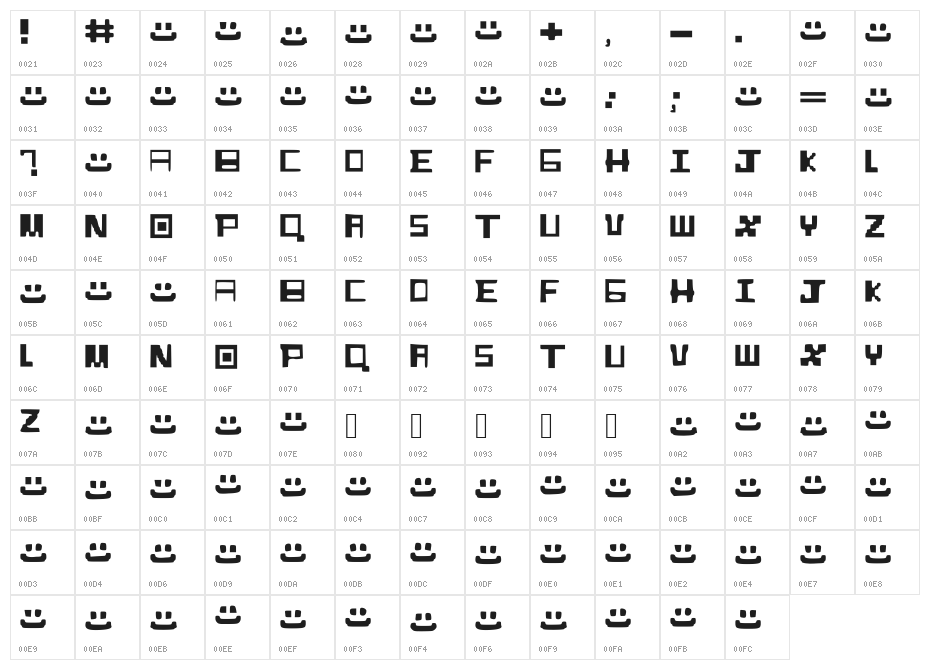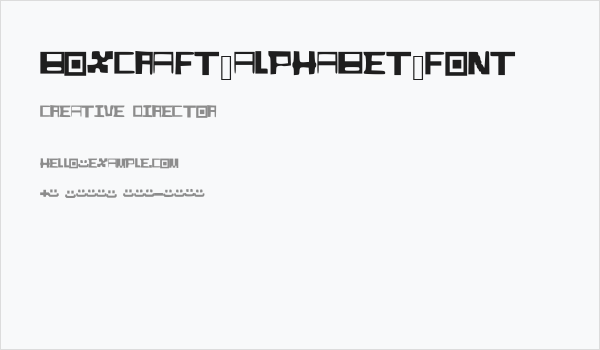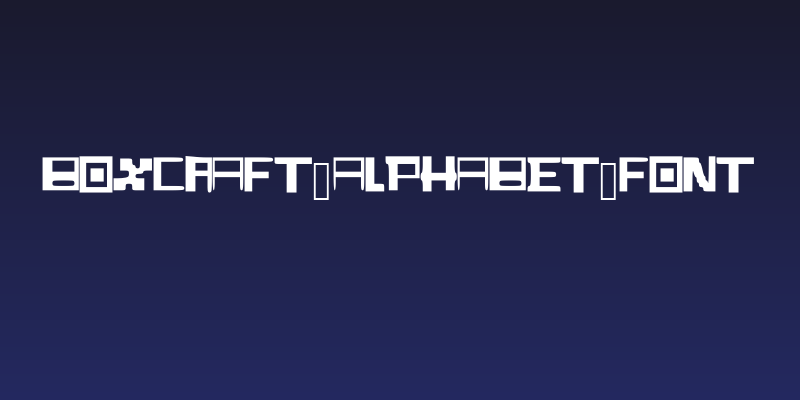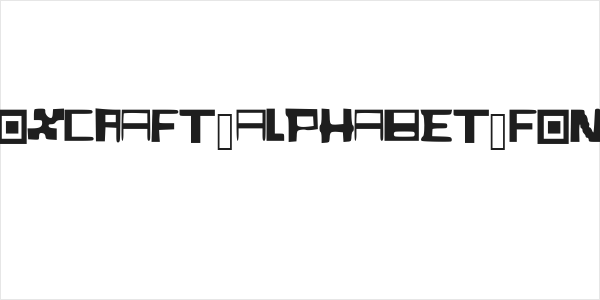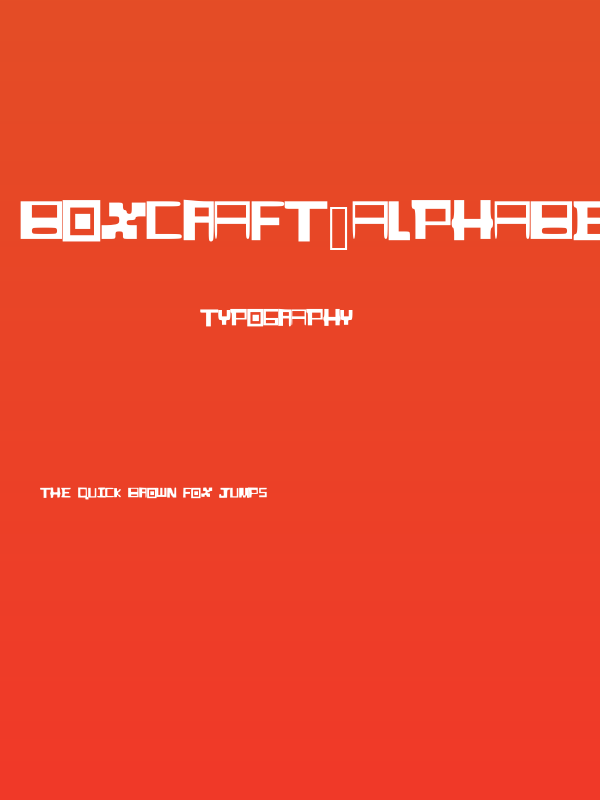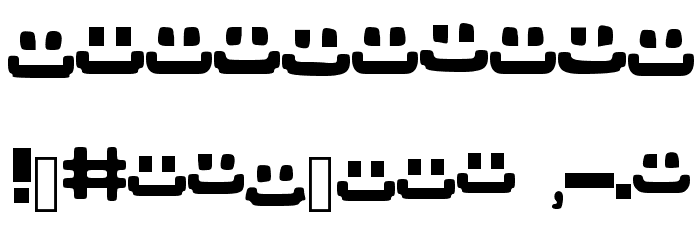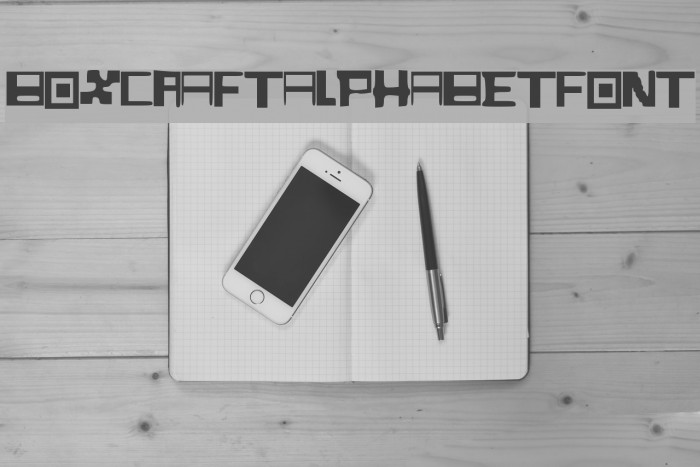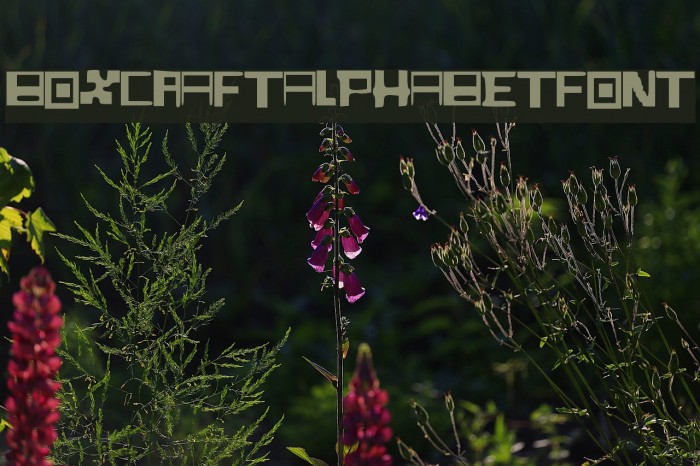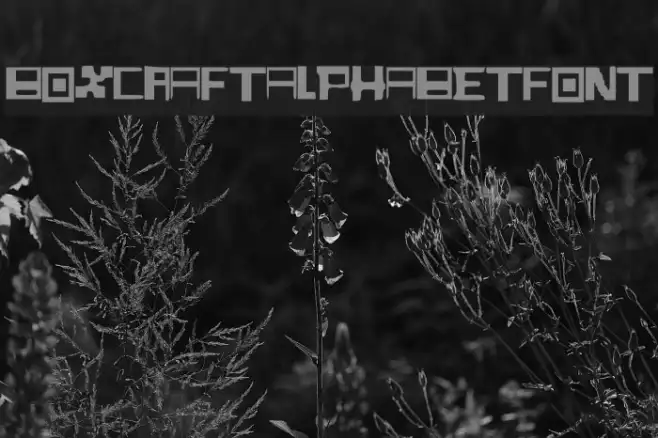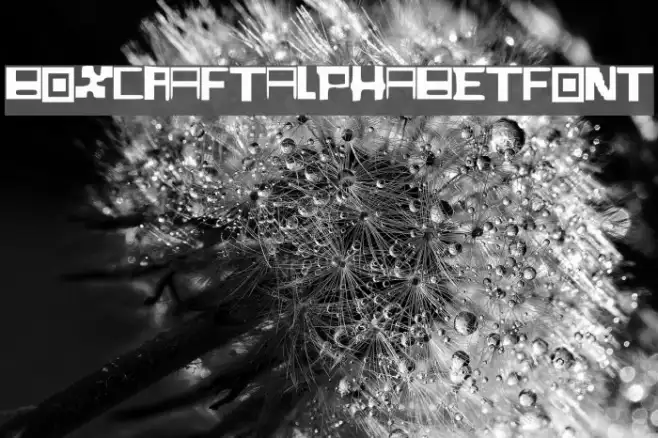
BoxCraft_Alphabet_Font Font
BoxCraft_Alphabet_Font Description
This font features a bold, geometric design with a blocky, pixelated appearance. The characters are constructed with sharp angles and straight lines, giving it a digital, futuristic feel. The uppercase and lowercase letters maintain a consistent style, with the lowercase slightly smaller but equally bold. Numbers and special characters follow the same design principles, ensuring uniformity across the font. The overall look is reminiscent of retro video games or digital displays, making it ideal for projects that require a tech-savvy or nostalgic touch.
| Proposed Projects | Ideal for video game graphics, tech-themed posters, digital art, and retro-style branding. |